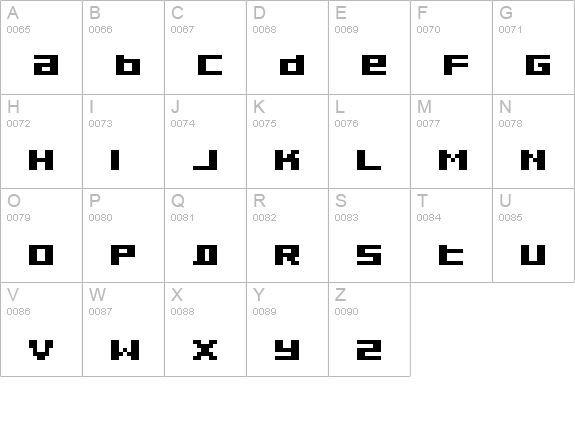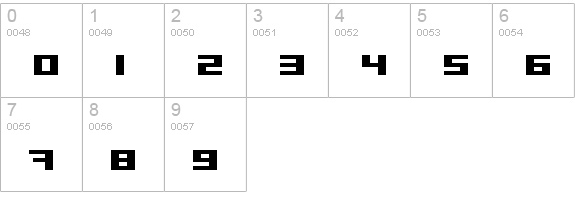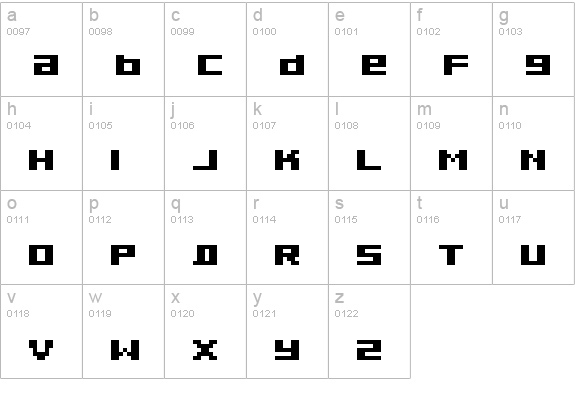
Pixeldust Expanded Bold Font Details
Pixeldust Expanded Bold is a strong, high-contrast, extended-width variant in the Pixeldust typeface family \xE2\x80\x94 well suited to headlines, attention-grabbing titles, and strong calls-to-action.
Pixeldust Expanded Bold is a visually striking and attention-grabbing font that is perfect for digital designs, website headers, and display projects. With its bold and exaggerated letterforms, this font commands attention and adds a touch of modernity to any creative work. Designed with a keen eye for detail, Pixeldust Expanded Bold features sharp edges and clean lines that give it a unique and contemporary look. Its expanded width ensures that each character stands out, making it ideal for headlines, banners, and logos that need to make a bold statement. This font is not only aesthetically pleasing but also highly versatile. It can be used across a wide range of design projects, from posters and flyers to social media graphics and app interfaces. Its high legibility ensures that your message will be easily conveyed to your audience, no matter the size or context. One of the best things about Pixeldust Expanded Bold is that it is available for free! Yes, you heard it right. This amazing font can be freely downloaded at FontsMarket.com. This means that you can enhance your designs with a professional and eye-catching typeface without having to spend a dime. So why wait? Unlock your creativity and make your designs stand out with Pixeldust Expanded Bold. Download it for free today at FontsMarket.com and experience the power of this remarkable font firsthand.